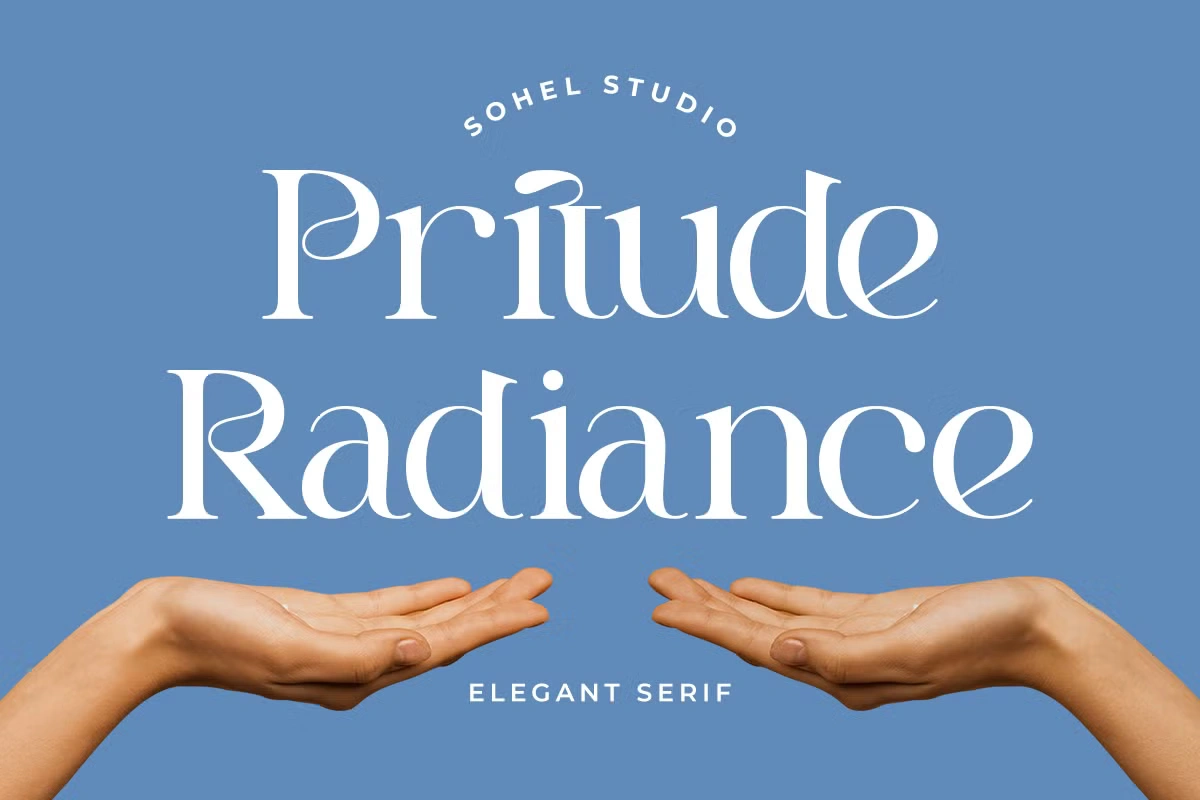
Pritude Radiance is a stylish and modern serif font designed to enhance branding with its sleek and clean look. Its unique topping adds a distinctive touch, making it stand out in various design applications. Fully supported with multilingual characters and excellent kerning, this font ensures a seamless and professional appearance in any project.
Ideal for creating elegant and luxurious logos, Pritude Radiance is a perfect choice for fashion and cosmetic brands, women’s magazines, and high-end advertising. Its sophisticated style also suits invitation cards, art quotes, home décor, book covers, and other creative designs. Whether used in print or digital media, it brings a sense of refinement and exclusivity.
Beyond branding and editorial use, Pritude Radiance works beautifully on products like tote bags, T-shirts, and event promotions. Its versatility allows designers to explore various creative possibilities while maintaining a polished and upscale aesthetic. This font is a great addition to any design toolkit, offering timeless elegance for multiple applications.